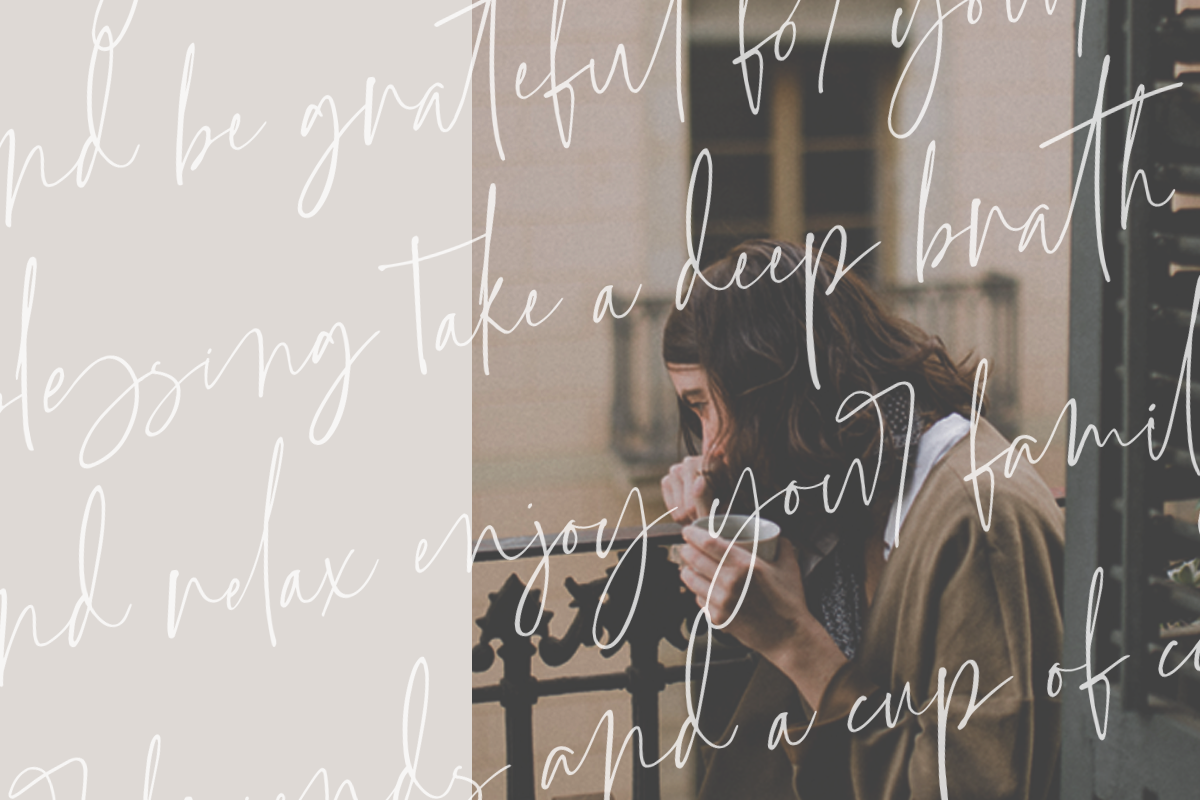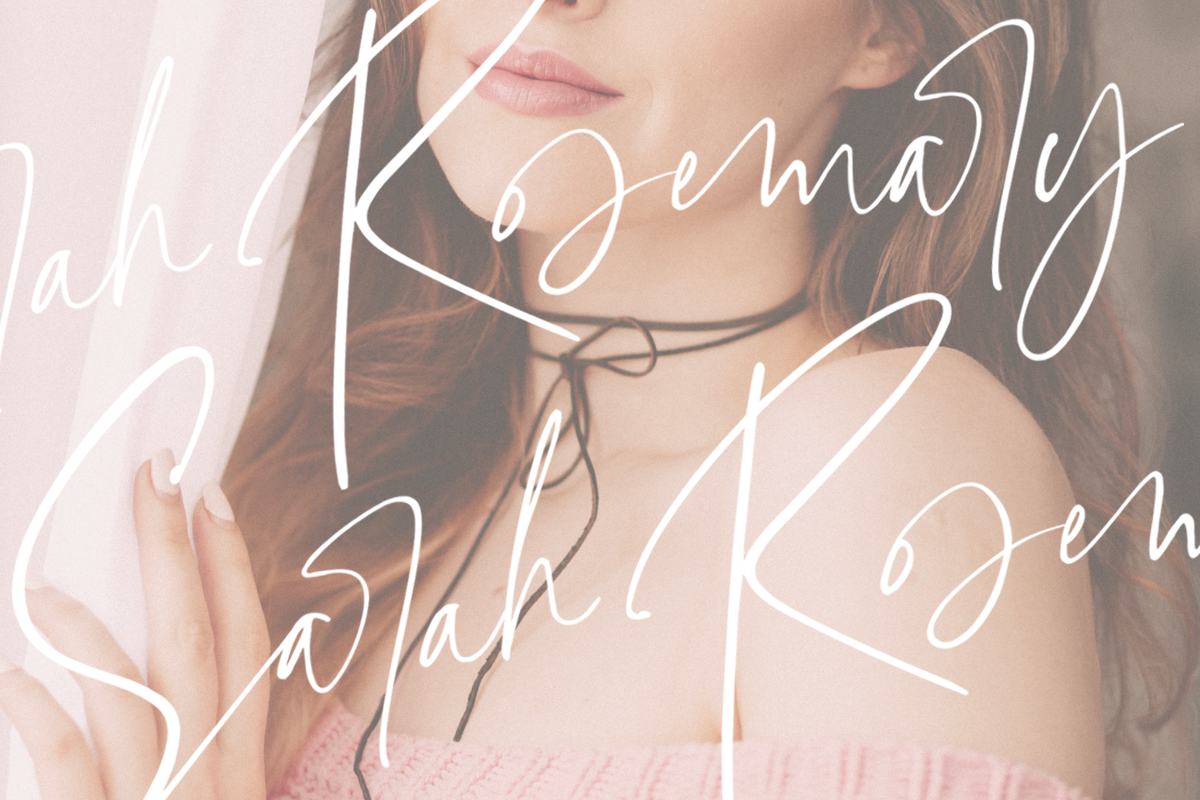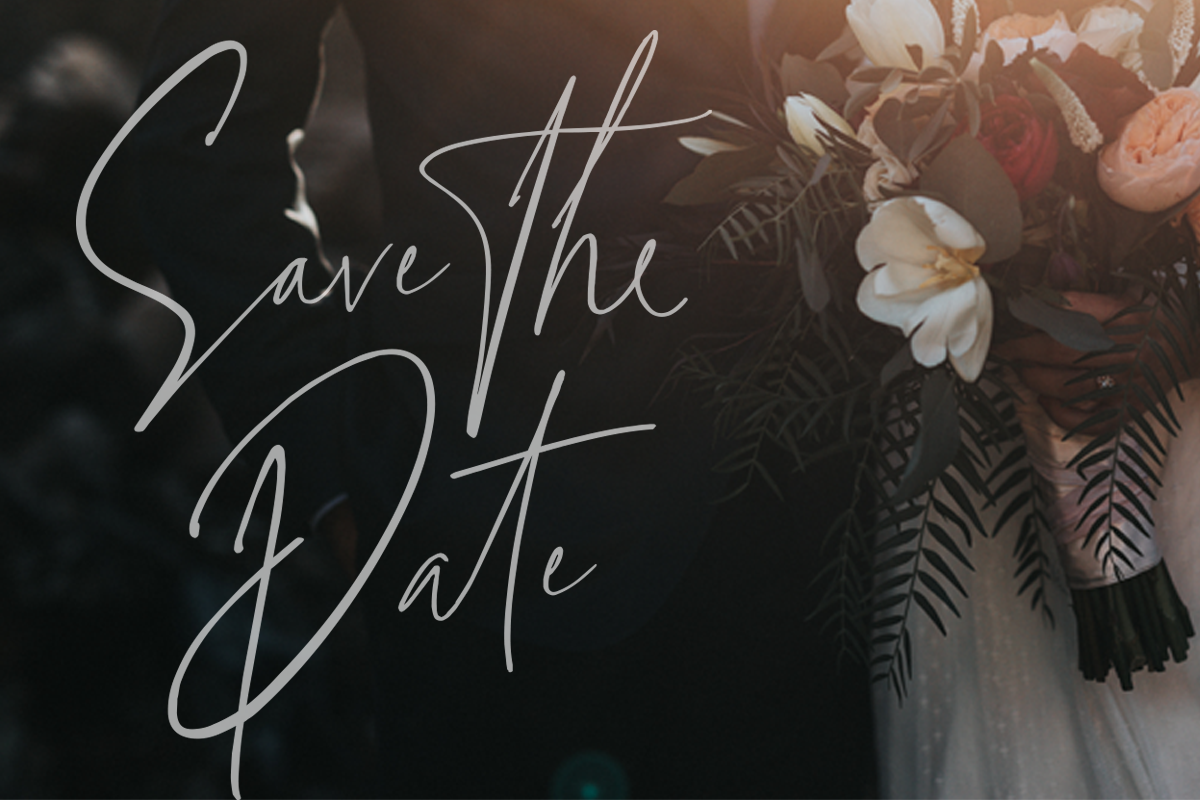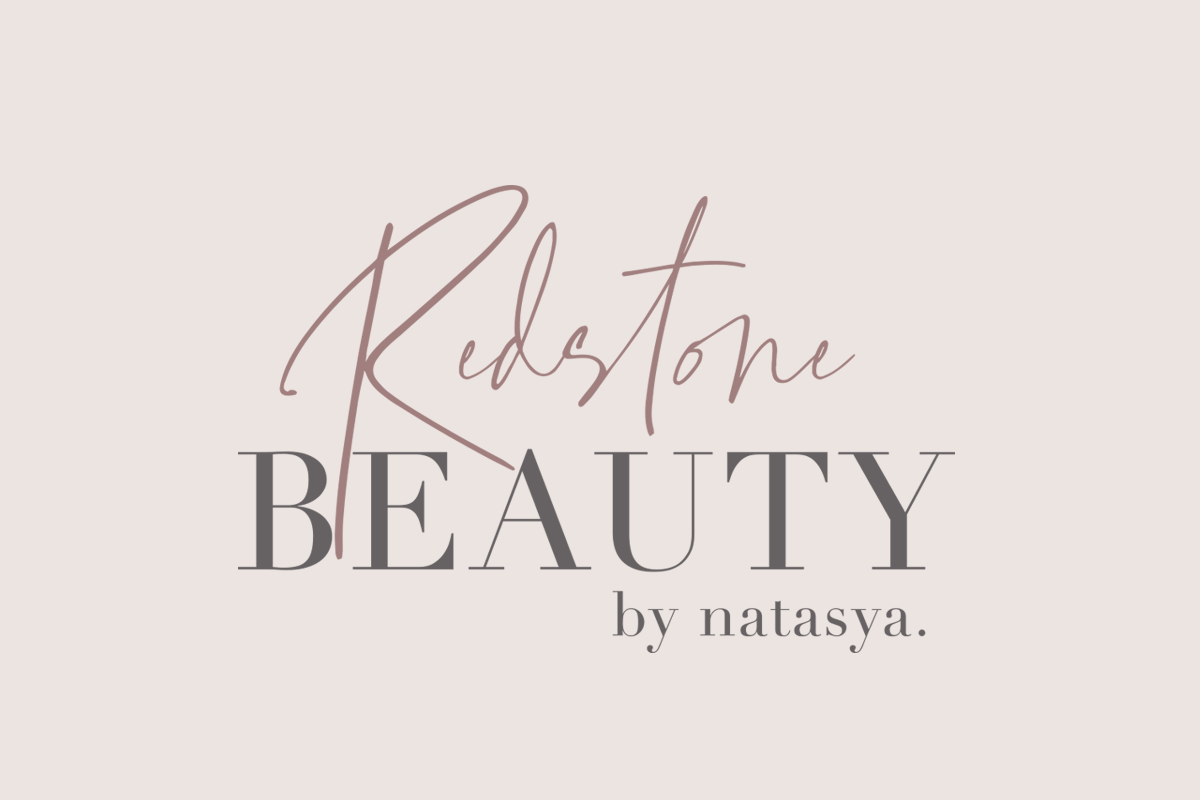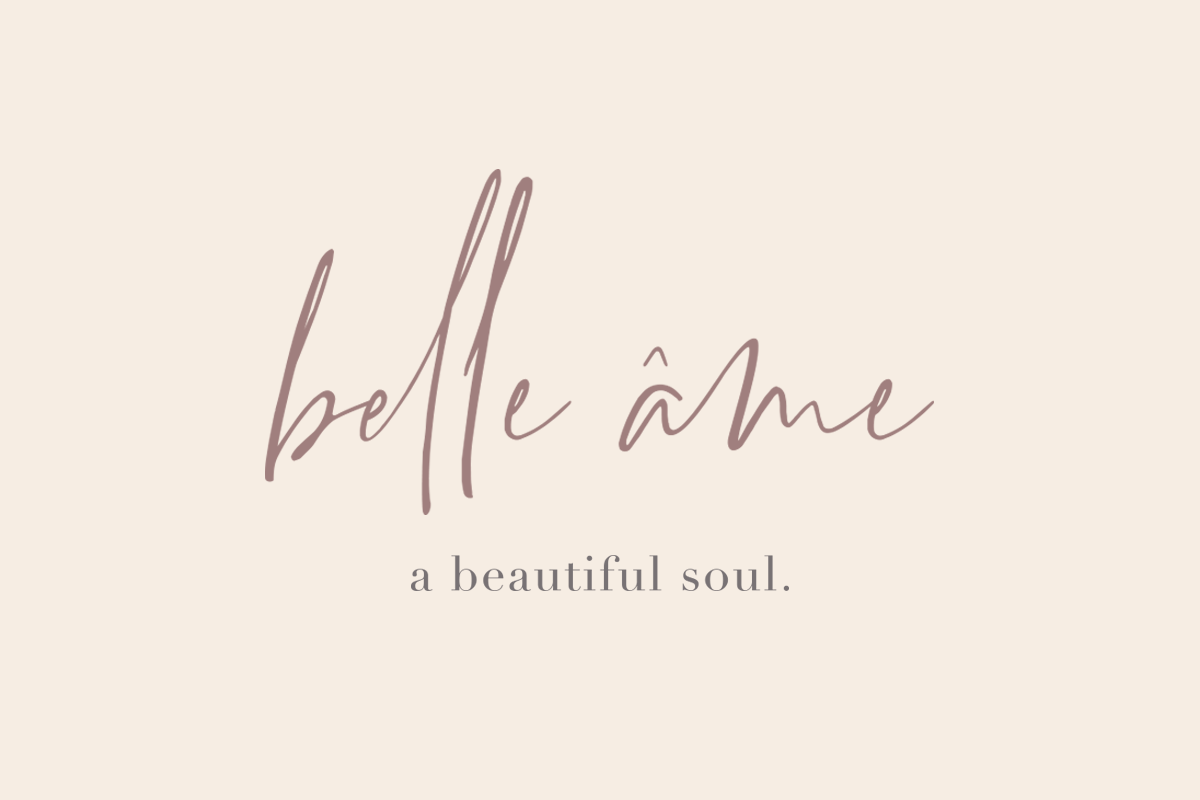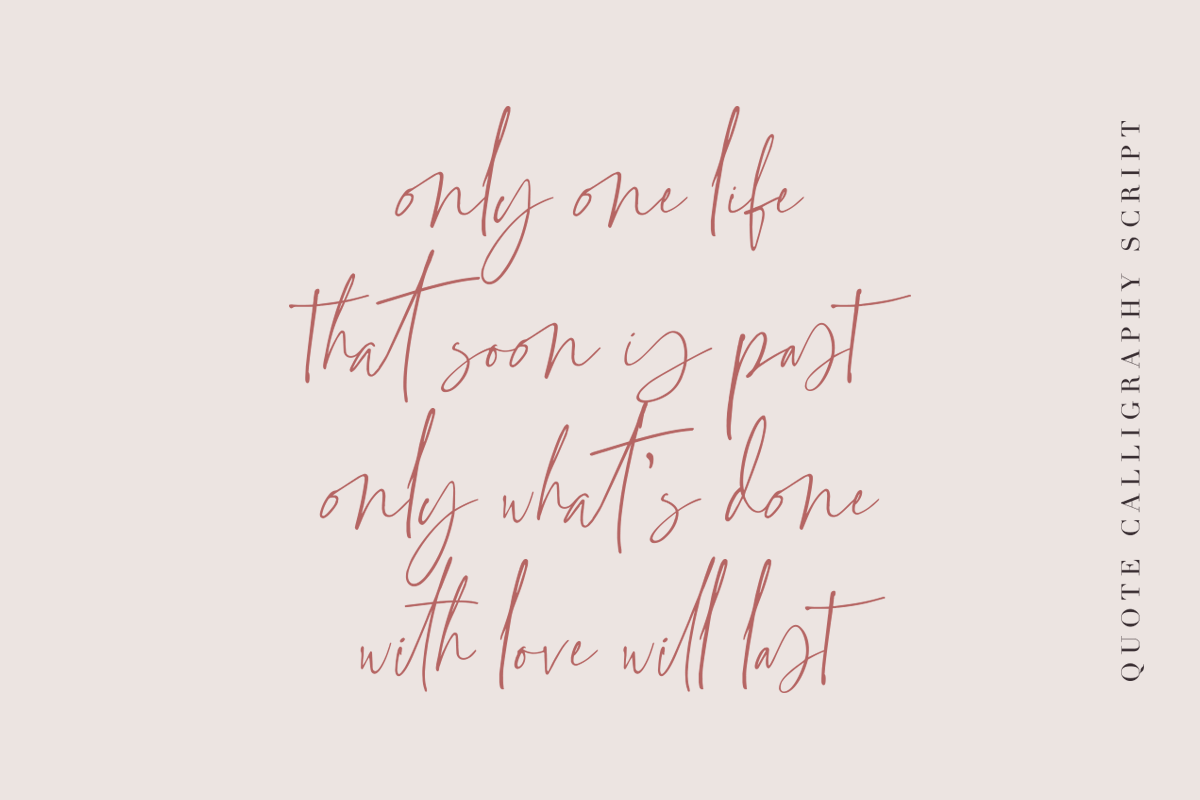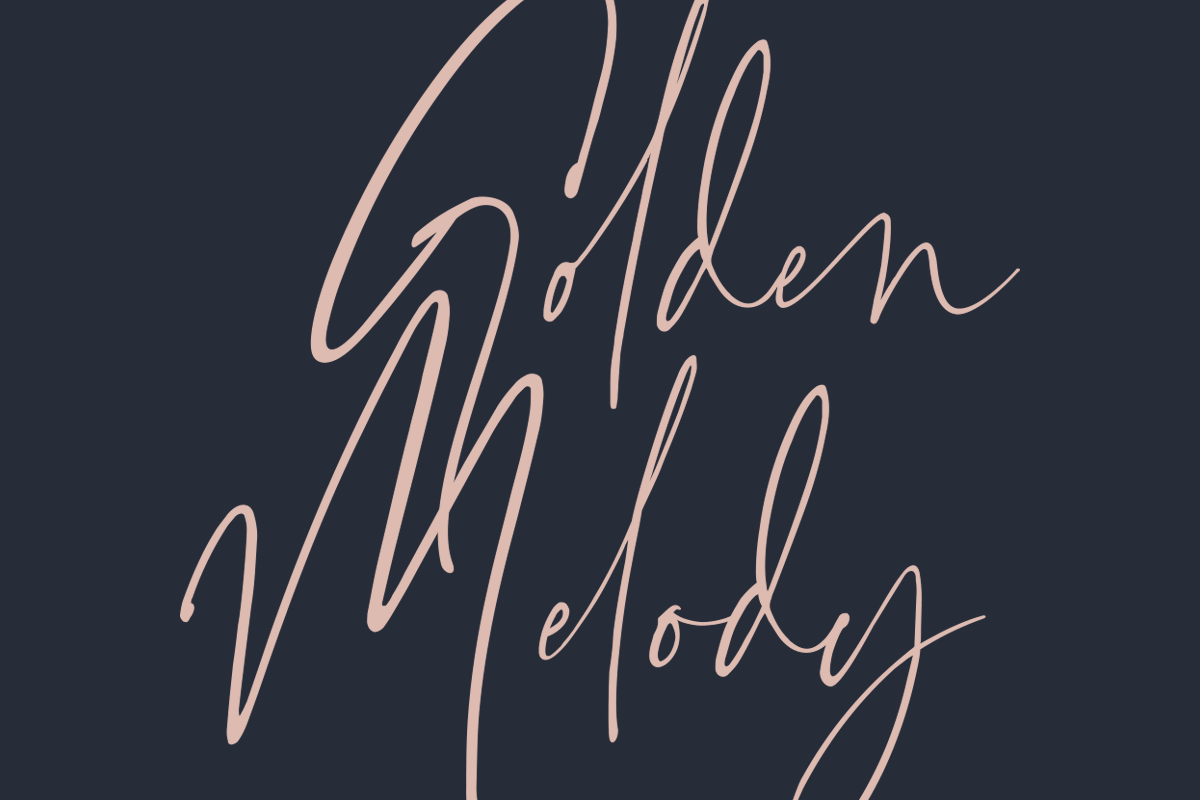
Grandiose - Stylish Signature Font
Say hello to New Stylish Script, Grandiose!
This font combines stylish letter shapes with contemporary twist. It's the perfect fit for all luxury projects, such as elegant logos, printed quotes, lovely wedding invitation cards, social media headers, product packaging and a lot more!
It includes full set of elegant uppercase and lowercase letters, multilingual symbols, numerals, punctuation. The font has smooth wet ink texture, so would be perfect for all types of printing techniques+you can do embroidery, laser cut, gold foil etc.